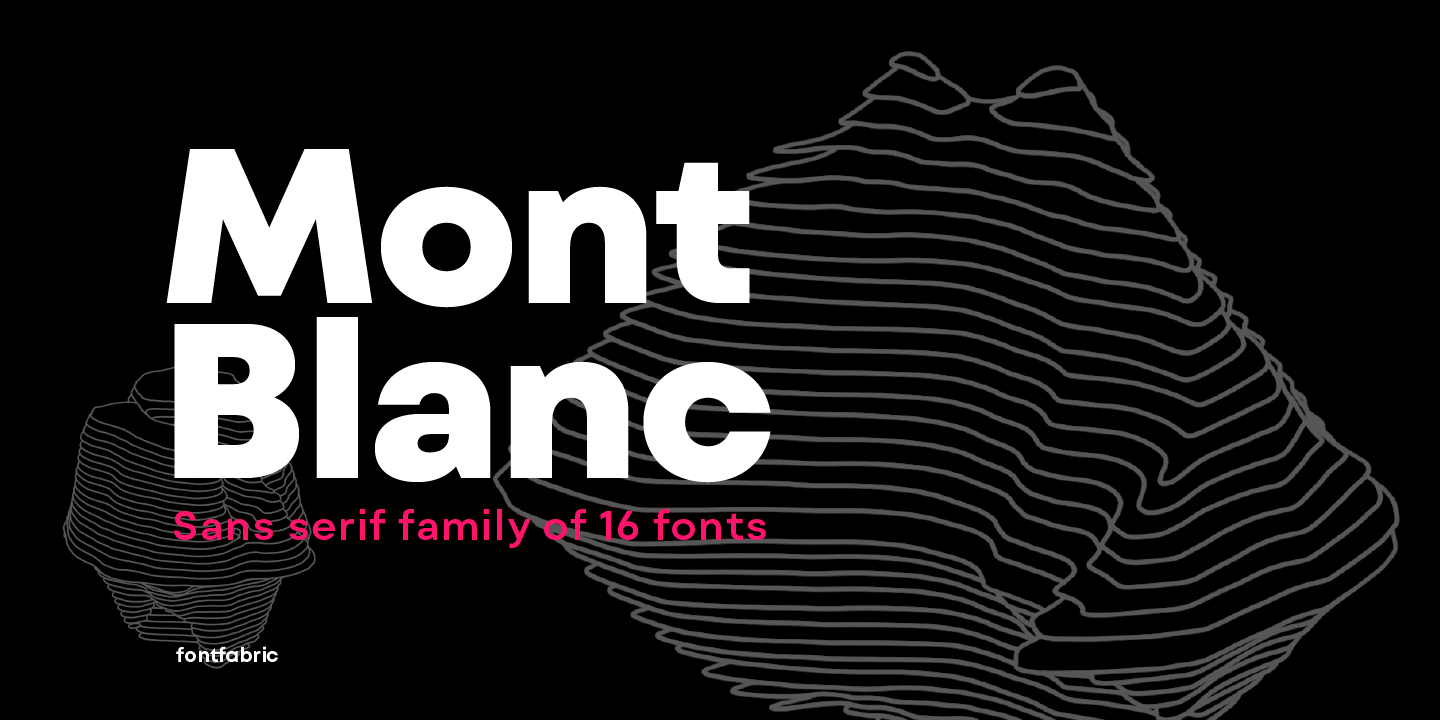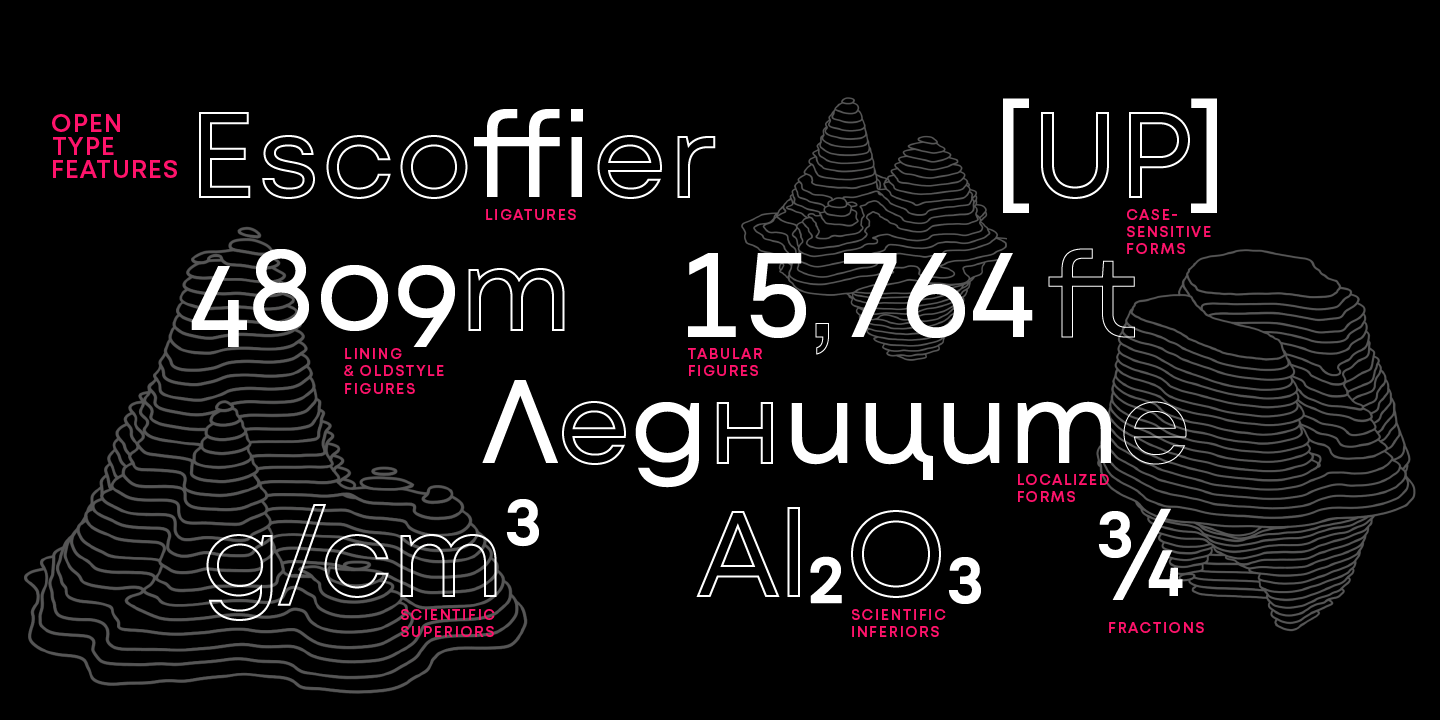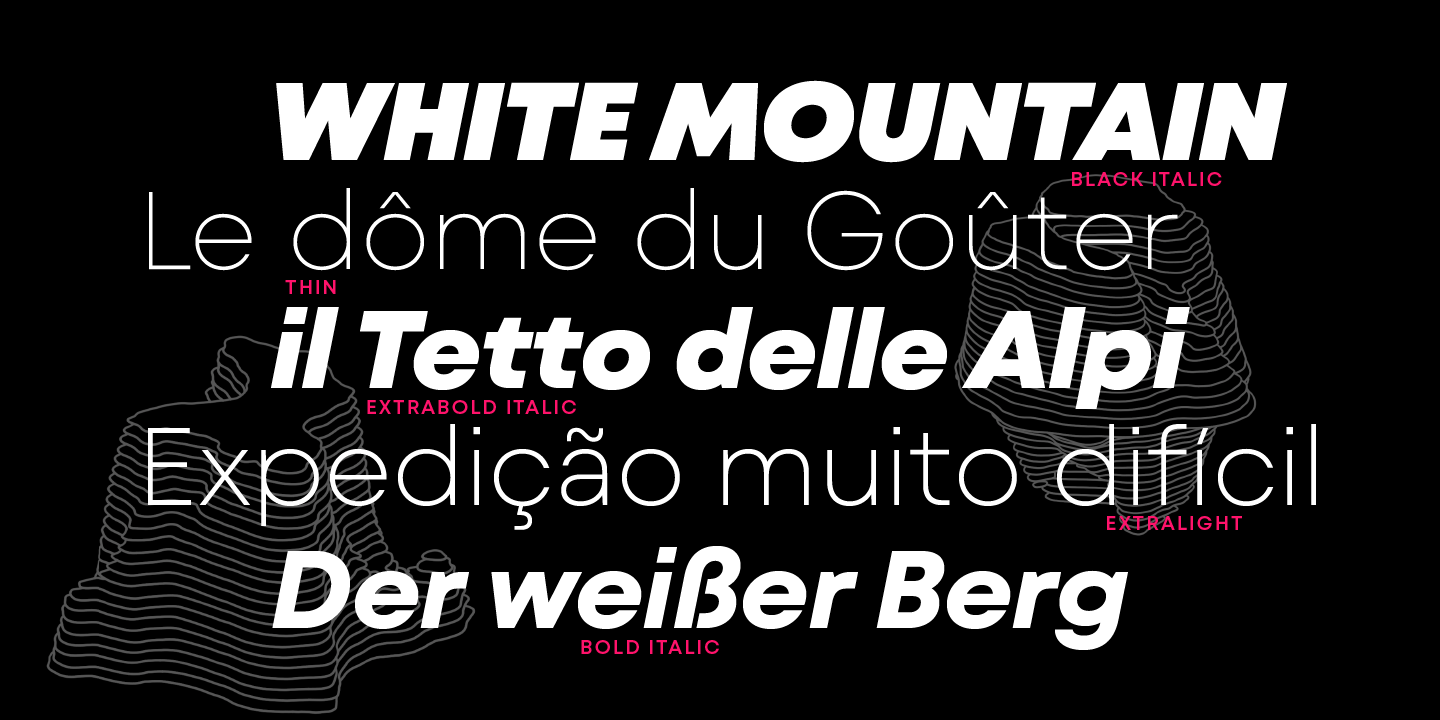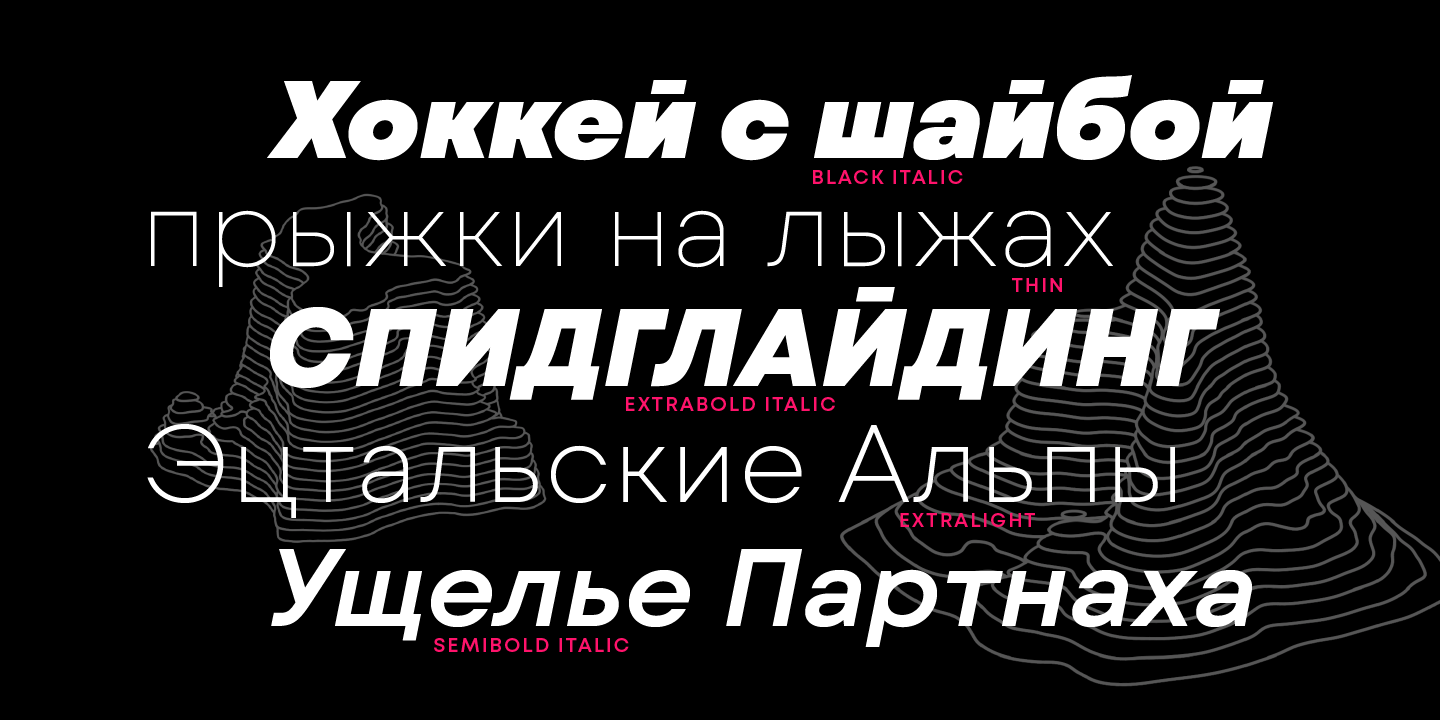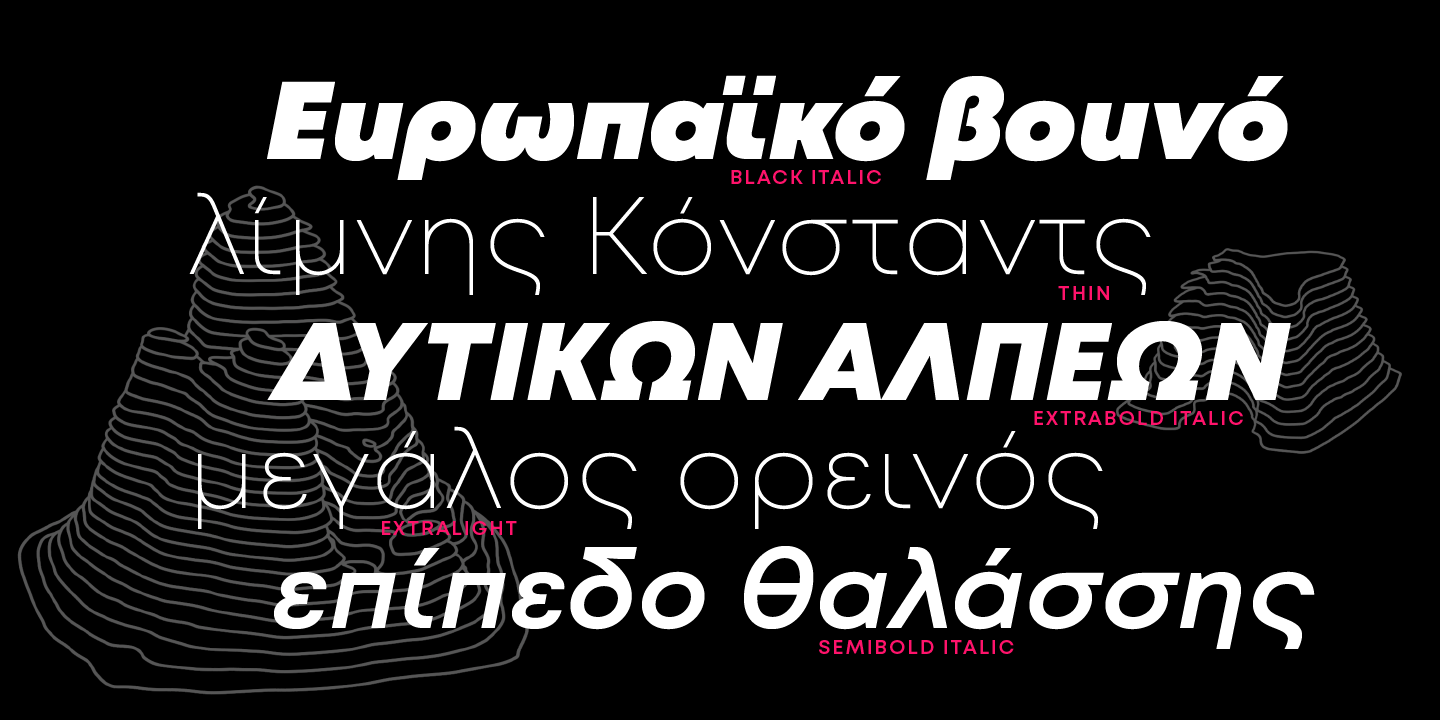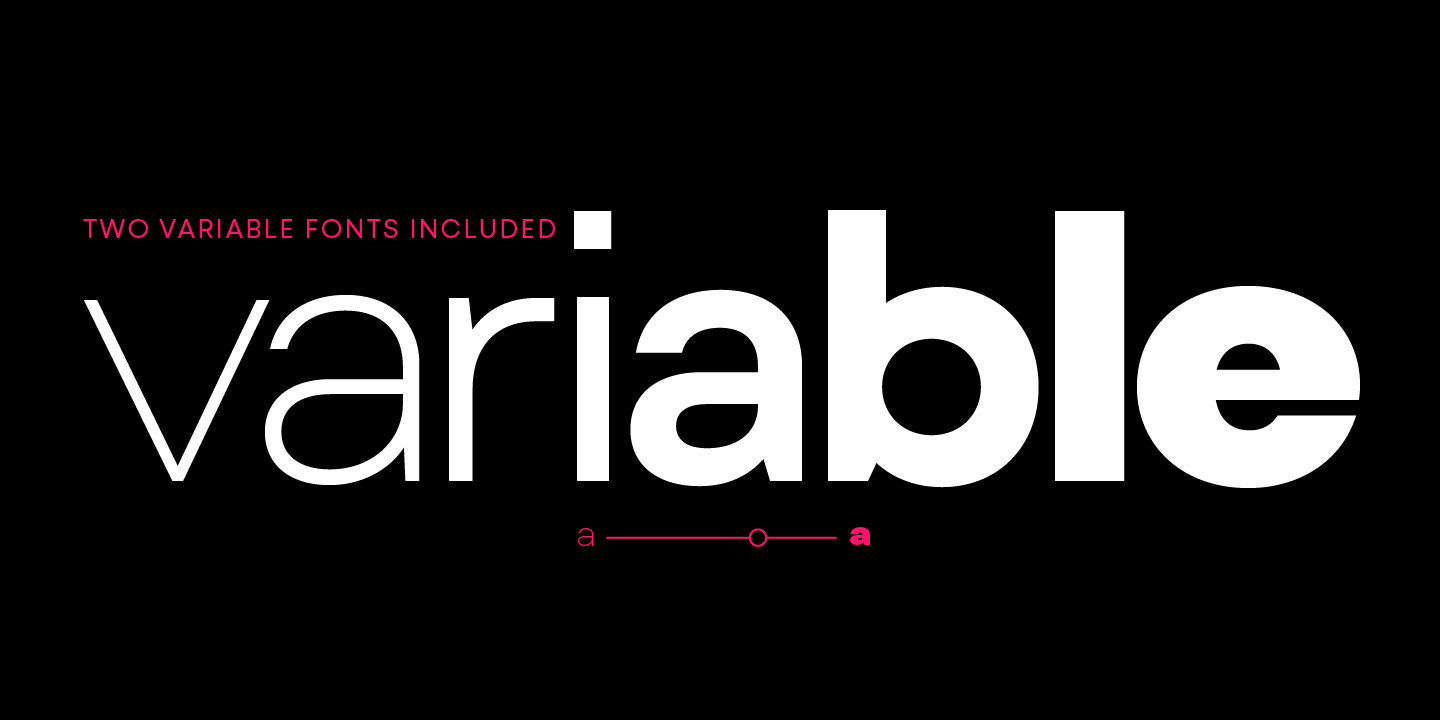
Mont Blanc
Font Family by Fontfabric
A new type giant emerges taking after the legendary geometric sans serif Mont!
Mont Blanc elevates all prized unique details of Mont and translates them into an independent flawless text font family. This type prodigy comes with heaping legibility improvements dedicated to the smaller sizes and challenging paragraphs.
The new type family is set to climb to the top of your 'favorite design tools' with adjusted x-height, refined weight, and glyphs redesign to name but a few. Venture into new projects equipped with 8 font weights and matching italics, multi-script support, and rich OpenType features set.